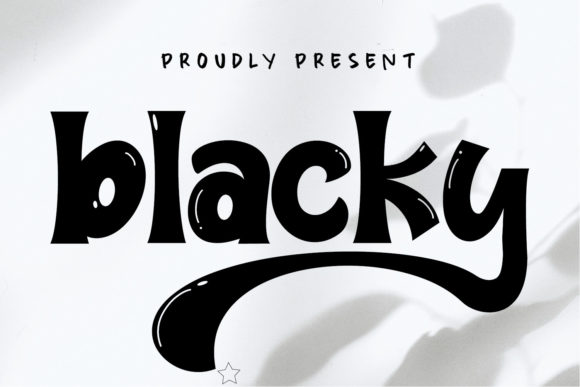
I still remember the frustration of working on a project, hours spent crafting the perfect design, only to be held back by one thing: the font. It was a client request for a logo that needed to be both elegant and artistic. I scoured the internet, tried countless fonts, but nothing seemed quite right. That was until I stumbled upon **Blacky Font**.
Blacky is a unique display font specially made for creative minds. This font is equipped with several alternate options that make this font more elegant and artistic. Suitable for logos, covers, advertisements, banners, and more. In this article, I’ll share my experience with Blacky Font, its features, and how to make the most of it in your designs.
An Honest Review of Blacky Font
- ✨ Elegant and Artistic: Blacky Font has a distinct style that can elevate any design project.
- ✅ Alternate Options: The font comes with several alternate options, making it versatile for various design needs.
- 💡 Inspirational: Blacky’s unique style can spark creativity and inspire new design ideas.
While Blacky Font is impressive, there are a few things to consider:
- ⚠️ Legibility at Small Sizes: Like many display fonts, Blacky might not be the best choice for body text or small font sizes.
- 🤔 Learning Curve: With several alternate options, it might take some time to get familiar with all the features Blacky has to offer.
The Story Behind Blacky Font
Blacky Font was created with the creative mind in mind. The designer, inspired by the beauty of handwriting and calligraphy, aimed to create a font that was both elegant and artistic. Through countless hours of work and refinement, Blacky Font was born – a unique display font designed to inspire and elevate creative projects.
Q: What makes Blacky Font unique?
A: Blacky Font’s uniqueness lies in its elegant and artistic style, along with its several alternate options that make it versatile for various design needs.
Q: Is Blacky Font suitable for body text?
A: While Blacky Font is primarily a display font, it might not be the best choice for body text due to its design and potential legibility issues at smaller sizes.